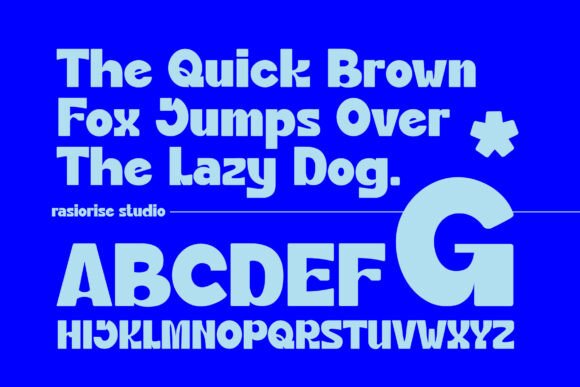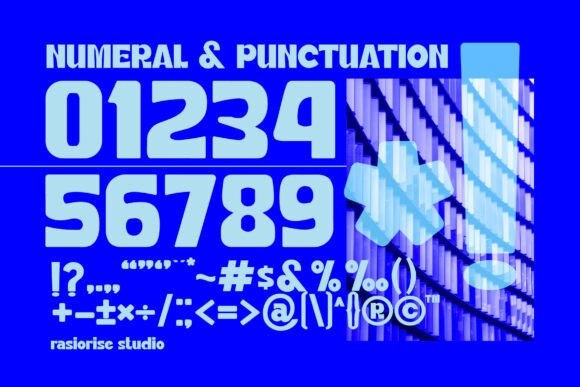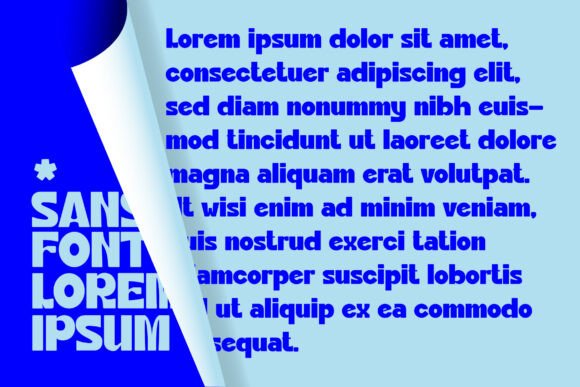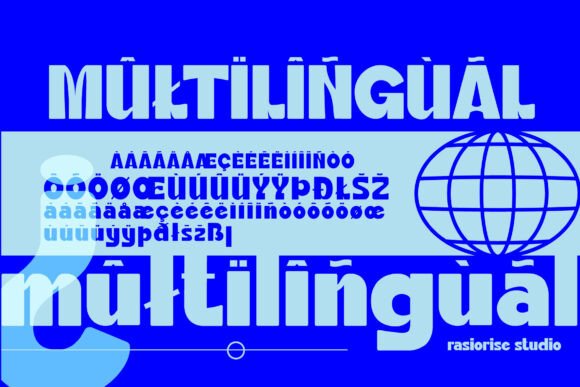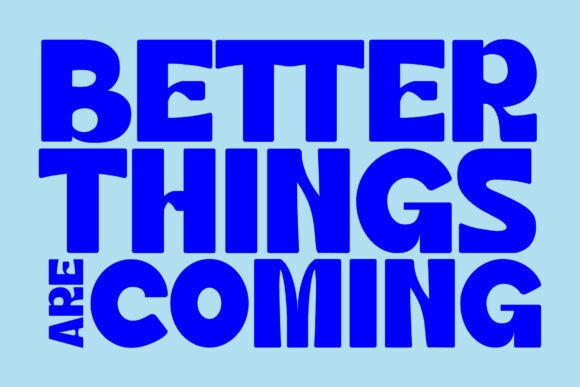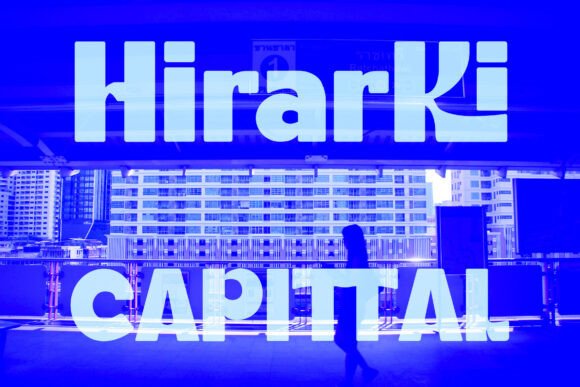
Unlock Your Creative Potential with Kismis Font
Have you ever stared at a blank canvas, eager to bring a fresh design to life, but struggling to find the perfect font to set the tone? We’ve all been there. That’s why we’re excited to introduce Kismis Font, a bold and condensed typeface designed to add a stylish touch to any project. Inspired by the best of Sans Serif Bold and Headline Sans-Serif styles, Kismis Font blends these influences into a playful and slightly pop design that’s sure to capture attention.
Whether you’re a seasoned designer or just starting out, Kismis Font is a valuable addition to your toolkit. Its unique inktrap details enhance readability at any size, making it perfect for logotypes, book covers, badges, logos, gift cards, greeting cards, posters, merchandise, packaging labels, and more. With Kismis Font, the possibilities are endless, and your creativity can shine through in a whole new way.
Kismis Font Key Features
- Font Family: Kismis Font is a sans-serif font family that includes multiple weights and styles, making it suitable for various design applications.
- Unique Characteristics: Kismis Font features a clean and modern design, with a subtle rounded edge to the letterforms, making it easy to read and visually appealing in both headings and body text.
- Language Support: Supports a wide range of languages, including Latin, Cyrillic, and Greek, making it suitable for international designs and applications.
Kismis Font Review
I recently had the chance to work with the Kismis font, and overall, I was quite impressed. Here’s what I liked and didn’t like about it.
- Unique style: Kismis has a distinctive, modern look that’s sure to stand out in any design.
- Good legibility: The font is easy to read, even at smaller sizes.
- Works well for headings: Kismis is a great choice for titles and headings, adding a touch of sophistication to your designs.
- Not ideal for body text: While Kismis works well for headings, it can be a bit too flashy for large blocks of text.
- Limited font weights: The font only comes in a few weights, which can limit your design options.
- Not suitable for small text sizes: Kismis can get a bit too ornate when used at very small sizes, making it hard to read.
Kismis is a great choice for designers who want to add a touch of modern flair to their work. While it has some limitations, it’s a versatile font that can add a lot of visual interest to your designs. Just be mindful of its limitations and use it in the right context.
Kismis Font Practical Application Guide
To get the most out of the Kismis font, use it sparingly to add a touch of elegance to your designs. Experiment with different font sizes and colors to create visual interest.
The Kismis font is ideal for:
Formal event invitations
High-end product branding
Luxury packaging design